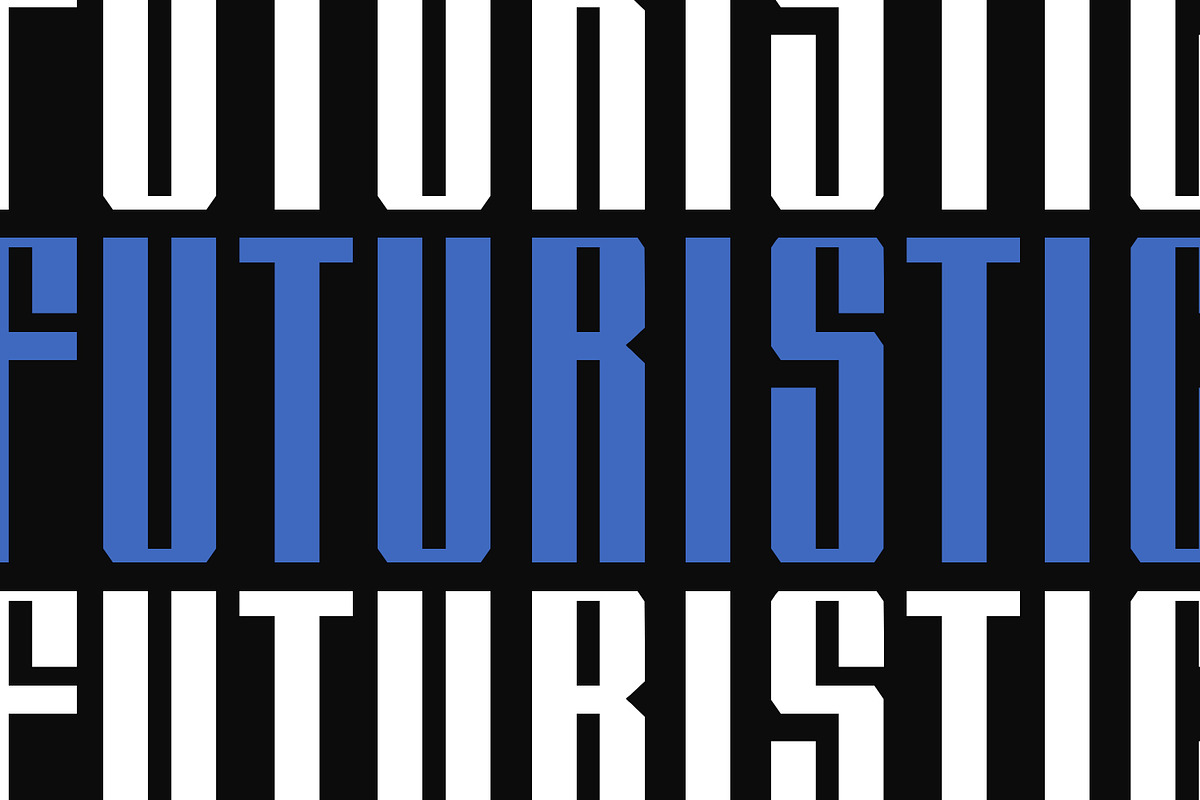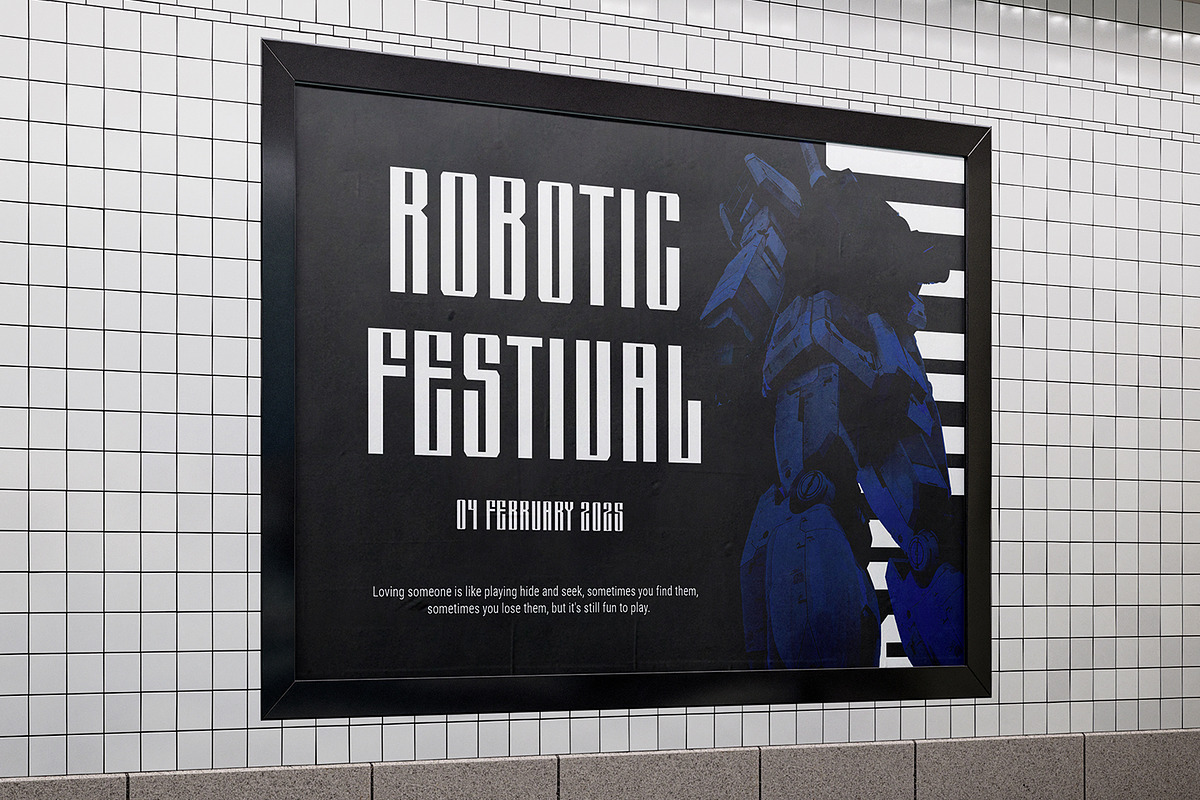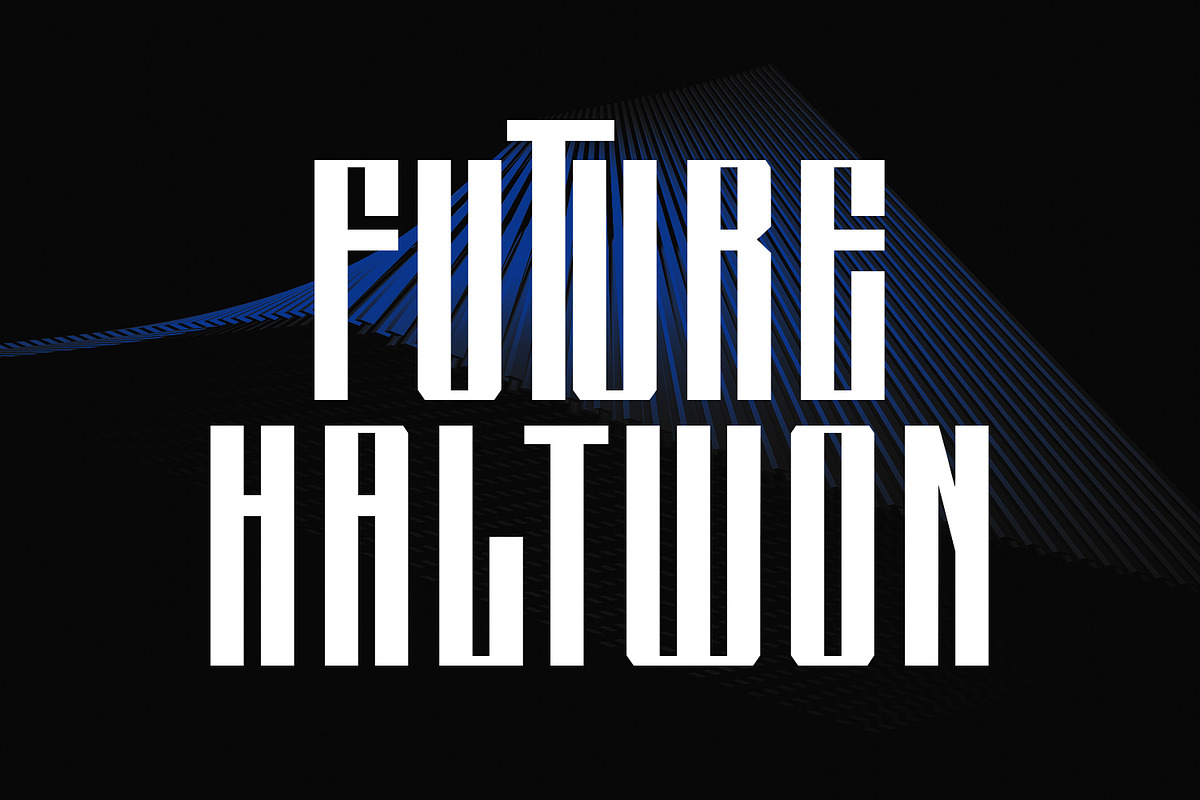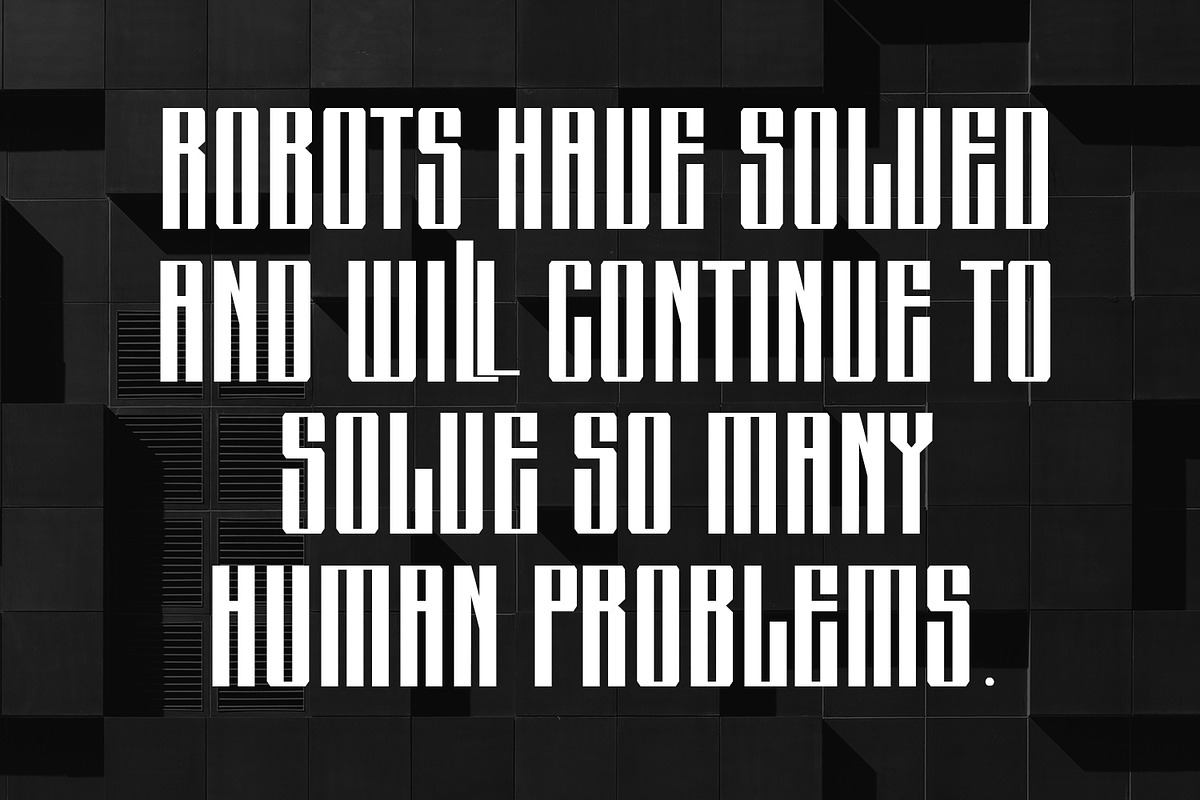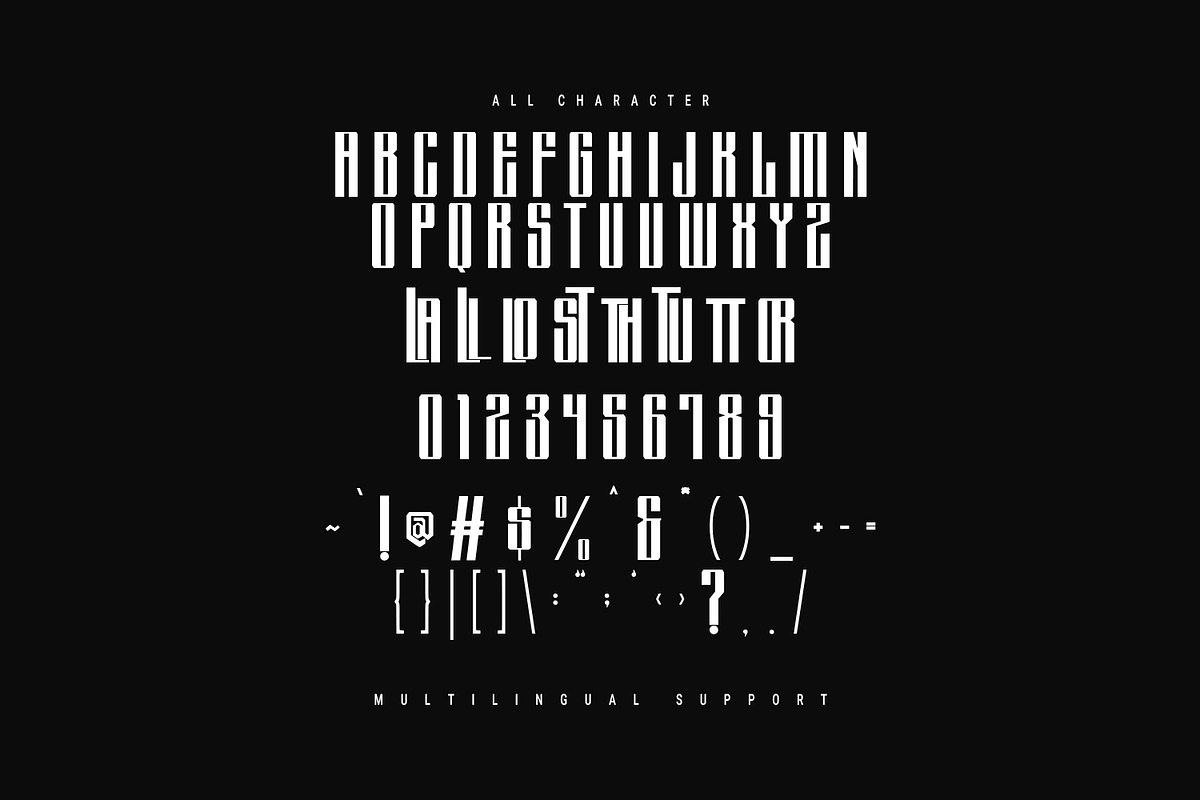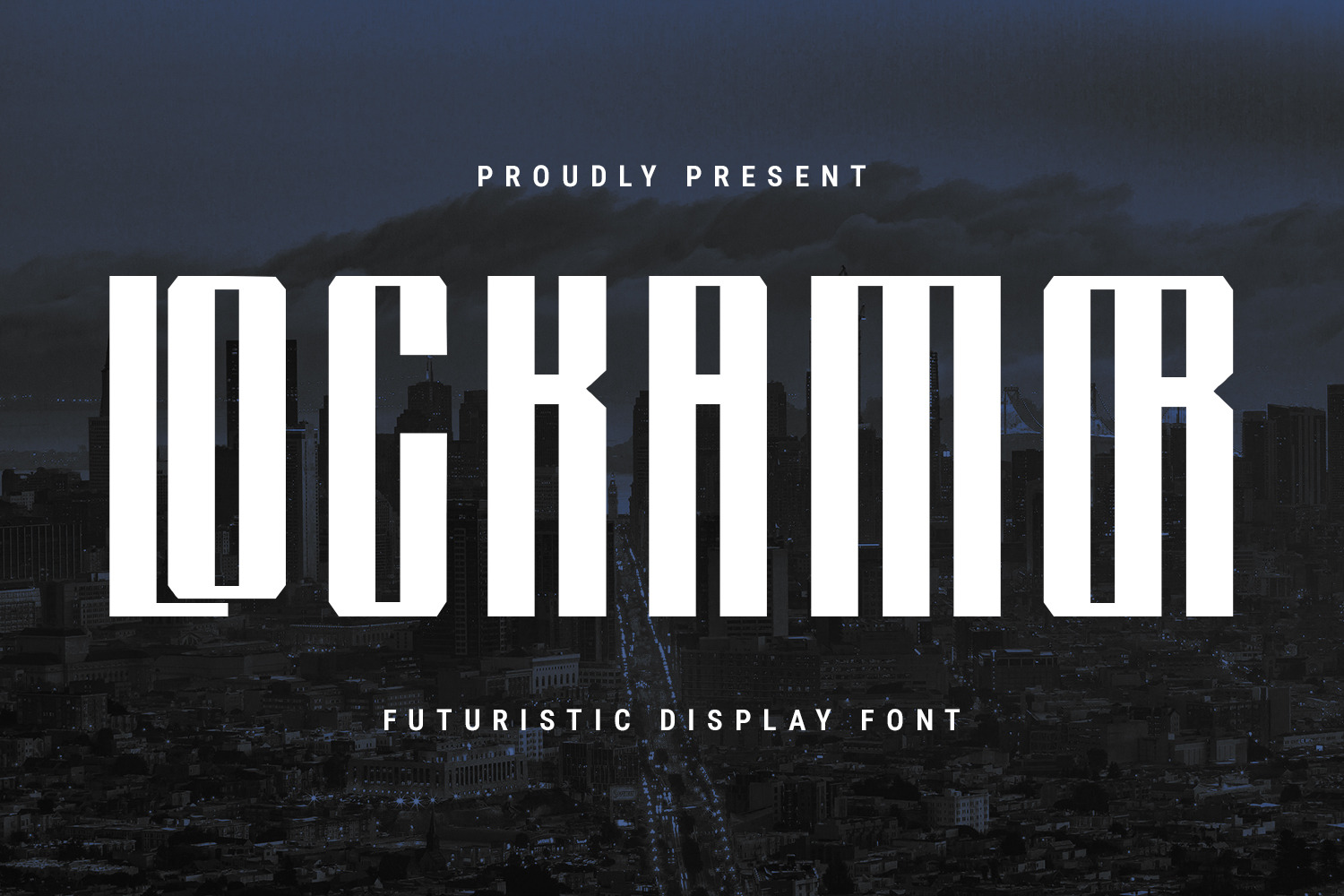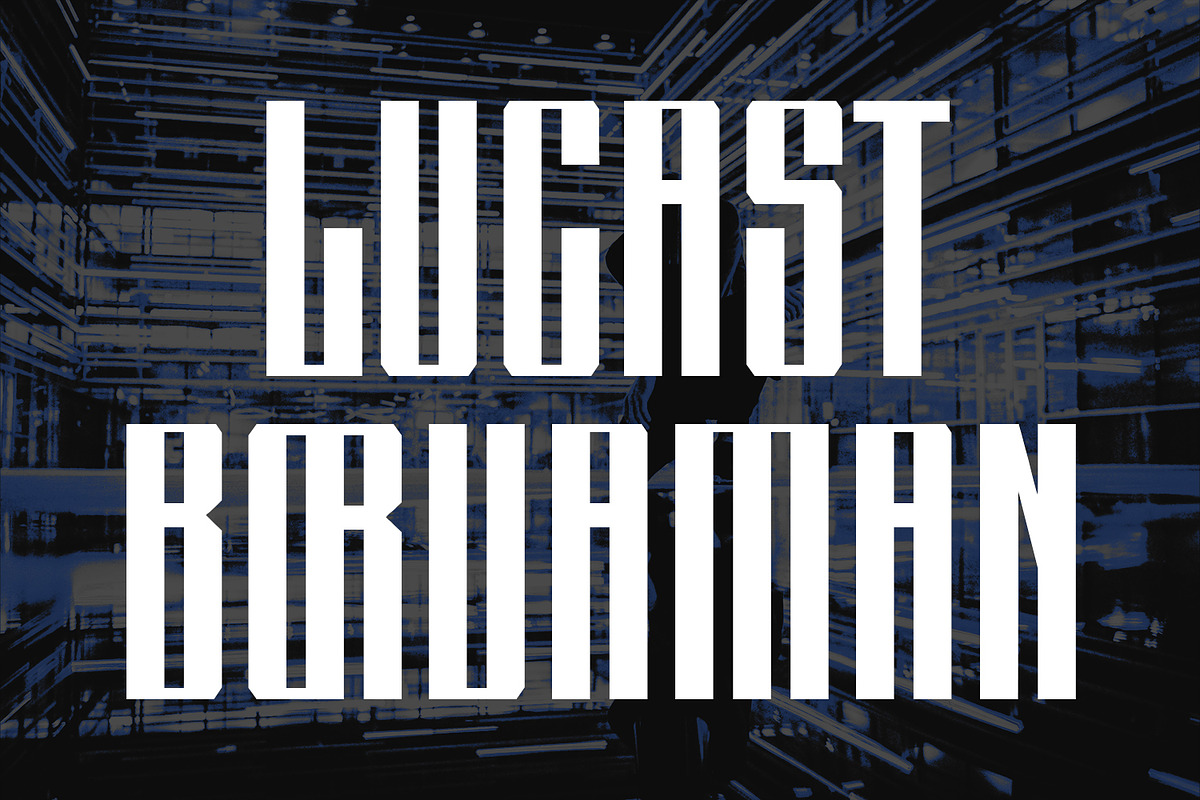
Lockamor Futuristic Display Font
Lockamor is a futuristic sans display font. Regular stroke, fun character with a bit of ligatures. To give you an extra creative work. Lockamor font support multilingual more than 100+ language. This font is good for logo design, Social media, Movie Titles, Books Titles, a short text even a long text letter and good for your secondary text font with script or serif. Make a stunning work with Lockamor font.